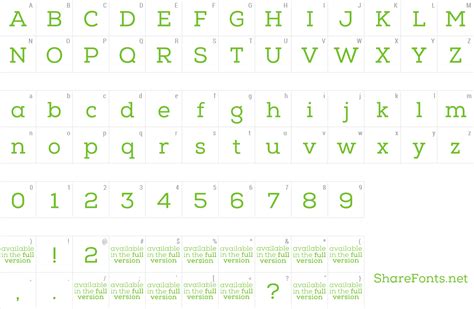
NexaRegular Fonts Downloads
Nexa Regular Font. Web nexa font family is suitable for headings of all sizes and text blocks in both maximum and minimum width and height.
Web nexa font family is suitable for headings of all sizes and text blocks in both maximum and minimum width and height.
Web nexa font family is suitable for headings of all sizes and text blocks in both maximum and minimum width and height. Web nexa font family is suitable for headings of all sizes and text blocks in both maximum and minimum width and height.